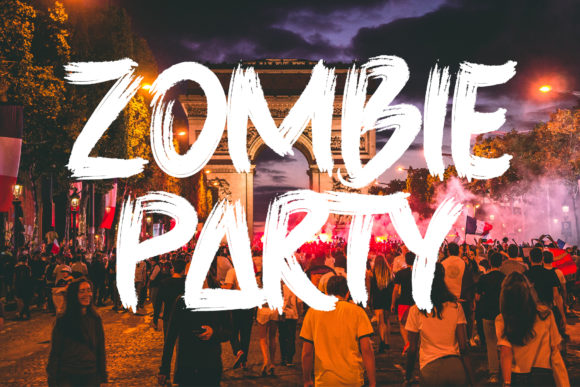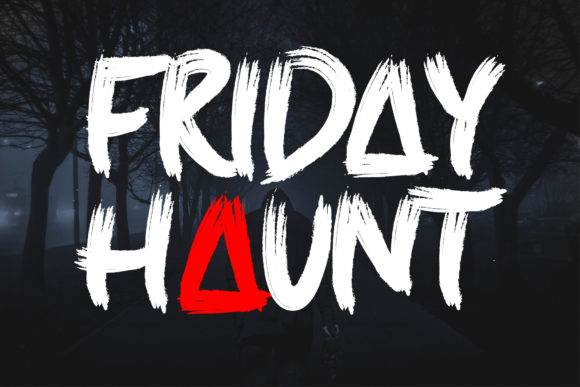
Scary Night Font
db-ku.com - Script & Handwritten -- Scary Night is a creepy, handwritten brush font, suitable for your Halloween moment! Whether you’re looking for fonts for Instagram or calligraphy scripts for DIY projects, this font will turn any creative idea into a true piece of art!